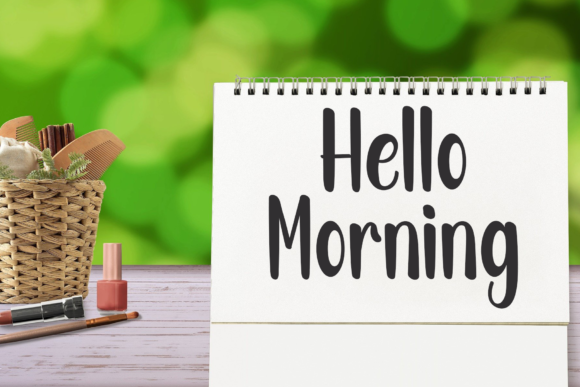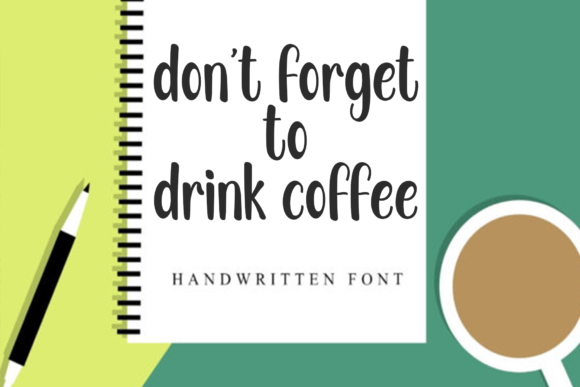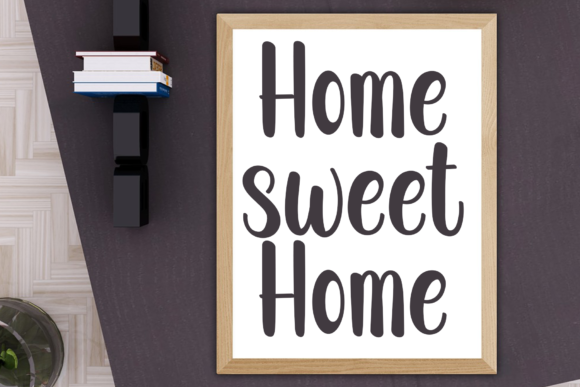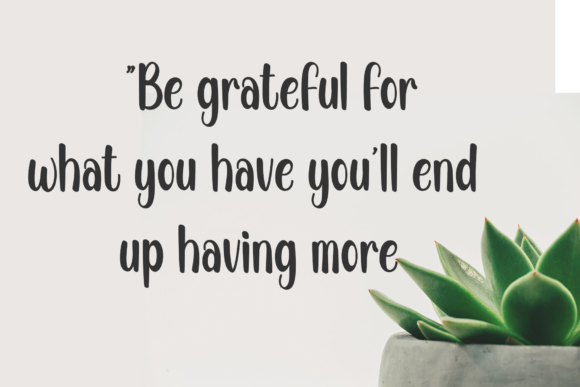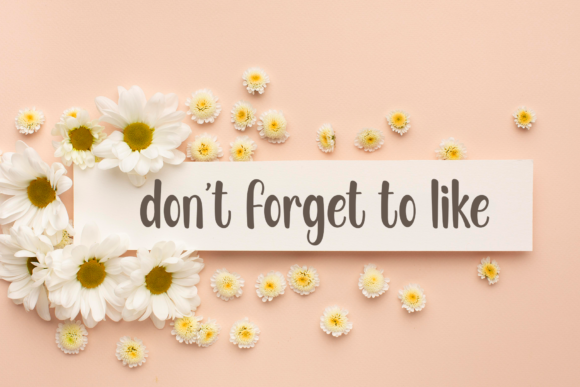
Spring Holiday Font
About Spring Holiday Font
“Spring Holiday” is described as a sweet and cursive handwritten font designed to bring a gentle and romantic touch to various design projects. The font’s characteristics suggest that it is well-suited for creating visually appealing and charming designs with a joyful and romantic vibe.
The use of the term “sweet” implies that “Spring Holiday” carries a pleasant and delightful quality, making it suitable for designs that aim to evoke positive emotions. The cursive style further enhances the font’s ability to add a sense of elegance and fluidity to text.
Being described as gentle, the font is likely to convey a soft and subtle aesthetic, making it a suitable choice for projects that require a delicate and inviting touch. This attribute can be particularly appealing for designs related to spring, holidays, or any context where a light and friendly atmosphere is desired.
The font’s versatility is suggested by its ability to look gorgeous on a variety of design ideas. This implies that “Spring Holiday” can adapt to different design contexts, offering flexibility for designers working on diverse projects.
In summary, “Spring Holiday” is presented as a charming and versatile cursive handwritten font ideal for creating joyful and romantic designs. Its sweet and gentle qualities make it suitable for a range of projects, particularly those associated with spring, holidays, or any setting where a delightful and inviting aesthetic is desired.